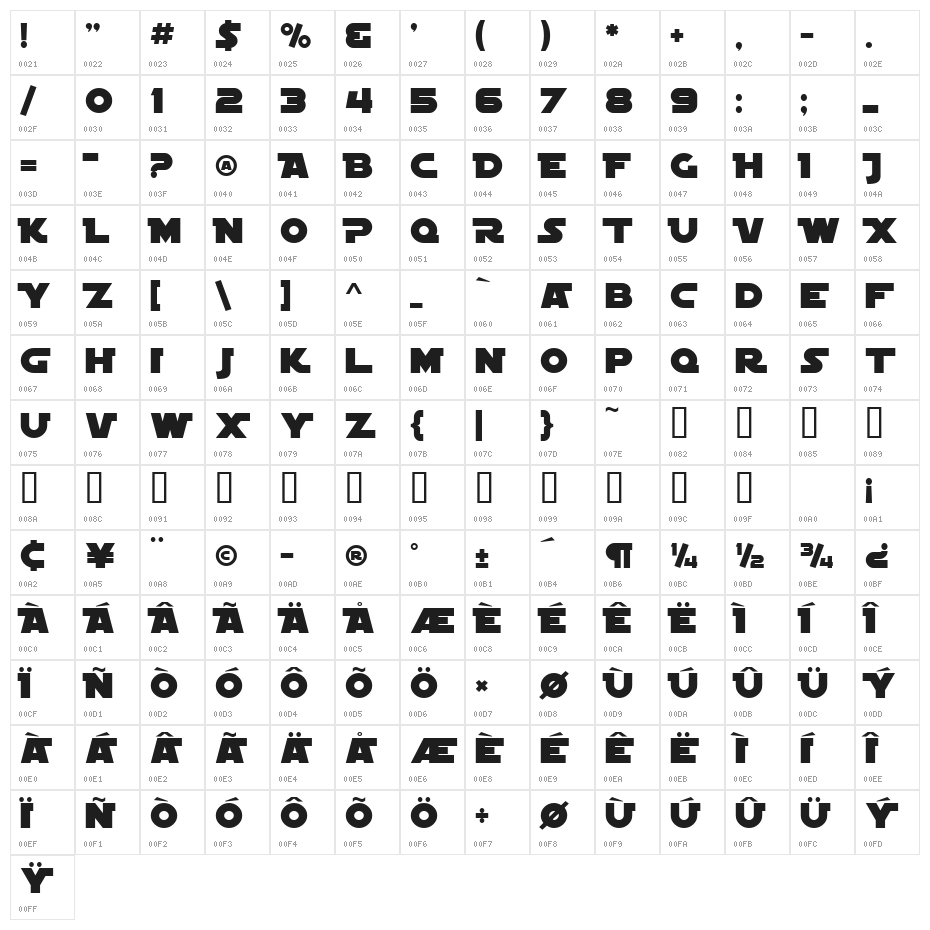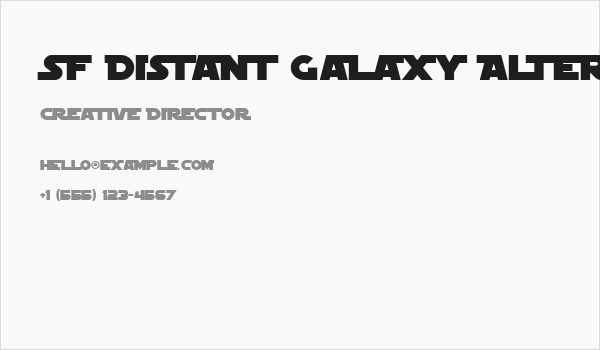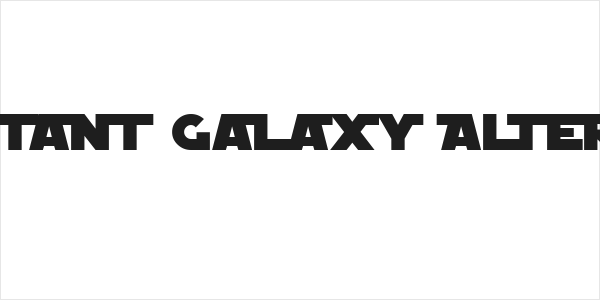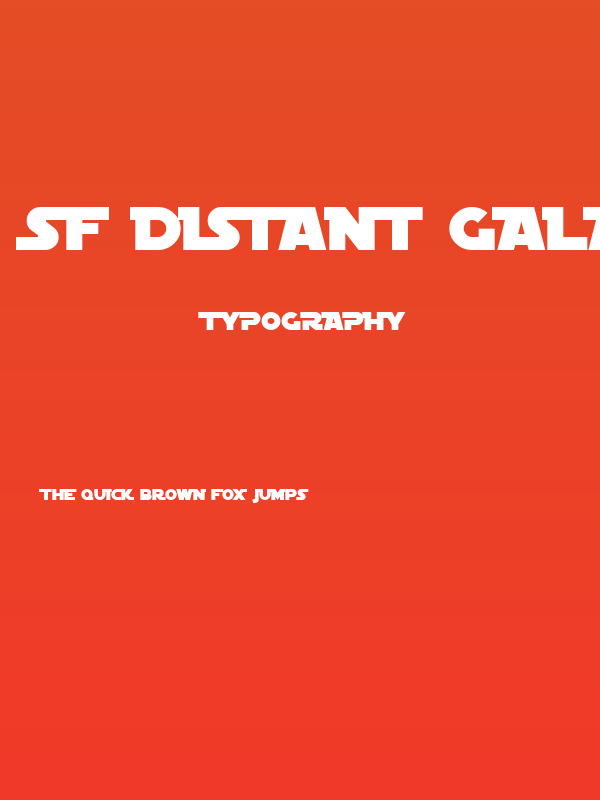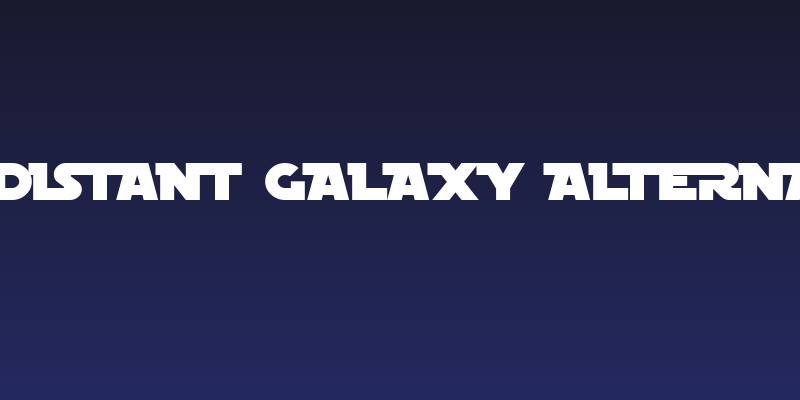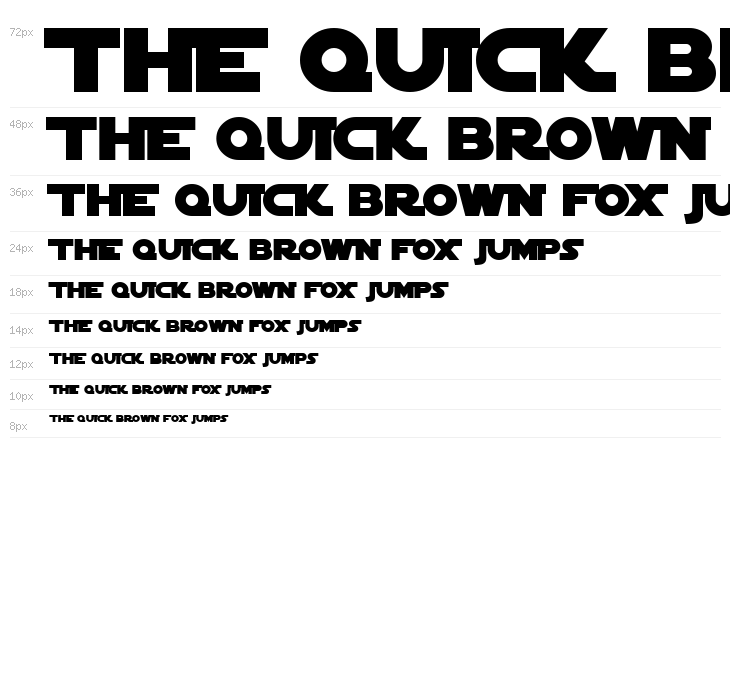
SF Distant Galaxy Alternate Font
SF Distant Galaxy Alternate Description
This font features a bold, futuristic design with a strong geometric influence. The characters are wide and blocky, with sharp angles and a consistent stroke width that gives it a powerful presence. The uppercase and lowercase letters maintain a uniform style, creating a cohesive look. The numerals and special characters are equally bold, ensuring readability and impact. This font is ideal for projects that require a modern, sci-fi aesthetic, such as movie posters, video game titles, or tech branding. Its distinct style makes it stand out, while the consistent character spacing ensures clarity.
WidthExpanded
Overall StyleFuturistic
Proposed ProjectsIdeal for sci-fi movie posters, video game titles, and tech branding.